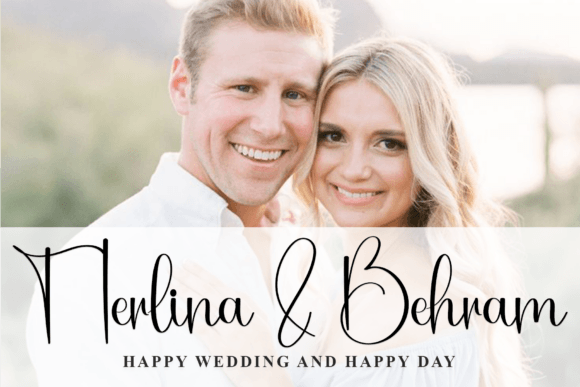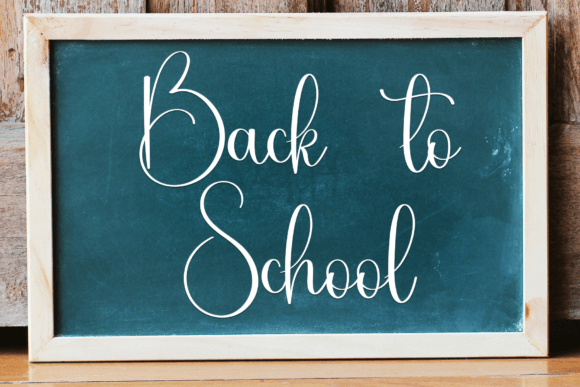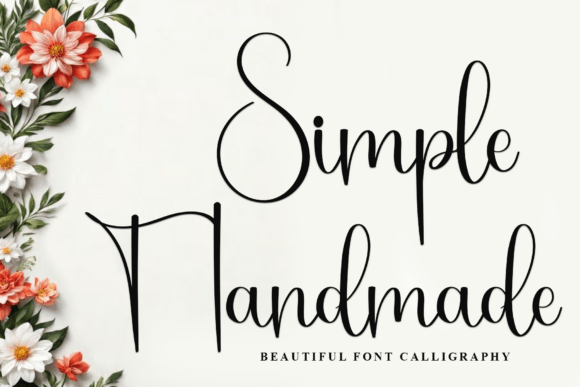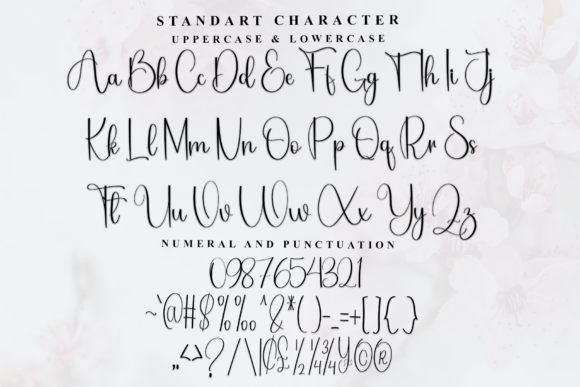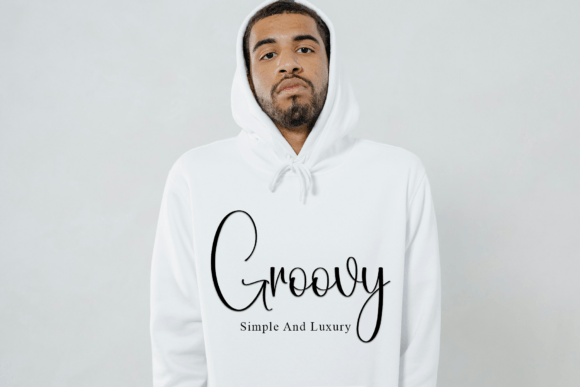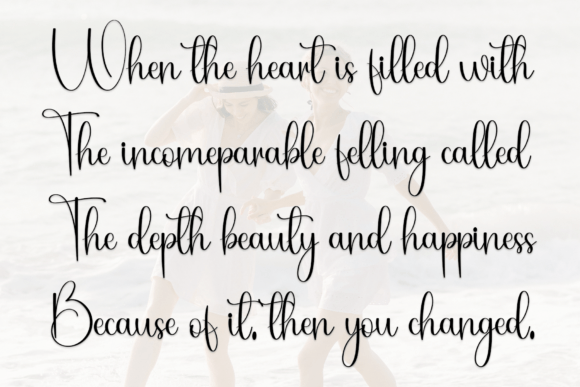
Baby Anithing Font: The Ultimate Guide to This Exquisite Handwritten Font
Baby Anithing is an exquisite handwritten font, masterfully designed to become a true favorite. It maintains its classy calligraphic influences while feeling contemporary and fresh. Fall in love with it and bring your projects to the highest levels!
What Makes Baby Anithing Font So Special?
Baby Anithing font is a beautiful, hand-crafted typeface that has captured the hearts of designers and crafters alike. Its unique blend of classic calligraphy and modern flair makes it the perfect choice for a wide range of projects, from wedding invitations and branding materials to digital content and craft designs.
Key Features of Baby Anithing Font
- Handwritten with love: Each letter has been carefully crafted by hand, giving the font a personal and intimate feel.
- Classy calligraphic influences: Baby Anithing font boasts elegant, flowing lines reminiscent of traditional calligraphy.
- Contemporary and fresh: Despite its classic roots, the font feels modern and trendy, making it perfect for a wide range of applications.
- Highly versatile: Use Baby Anithing font for everything from digital content to print materials, and from formal events to casual crafts.
Whether you’re a professional designer or a crafty DIY enthusiast, Baby Anithing font is an excellent addition to your toolkit. Its unique style and versatility make it perfect for:
- Wedding and event planning: Create stunning invitations, save-the-dates, and other stationery with a personal touch.
- Branding and marketing: Use Baby Anithing font to add a touch of elegance and sophistication to your brand’s visual identity.
- Digital content creation: Add a dash of personality to your blog posts, social media graphics, and other digital content.
- Crafting and DIY projects: Use Baby Anithing font to create custom signs, cards, and other handmade crafts.
Tips for Using Baby Anithing Font
To get the most out of Baby Anithing font, here are a few tips to keep in mind:
- Pair it with contrasting fonts: Combine Baby Anithing font with a clean, sans-serif font to create visual interest and balance.
- Experiment with colors and textures: Add depth and personality to your designs with rich colors and textures.
- Play with sizes and styles: Use Baby Anithing font in a variety of sizes and styles to create visual hierarchy and emphasis.
Baby Anithing font is a true gem in the world of typography. Its exquisite handwritten design, classy calligraphic influences, and contemporary feel make it the perfect choice for designers and crafters looking to add a touch of elegance and personality to their projects. With its versatility and wide range of applications, Baby Anithing font is sure to become a favorite in your toolkit.